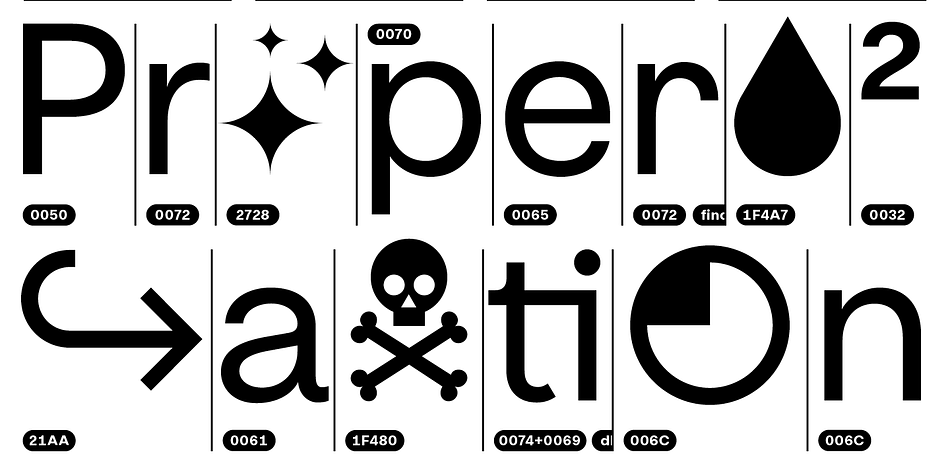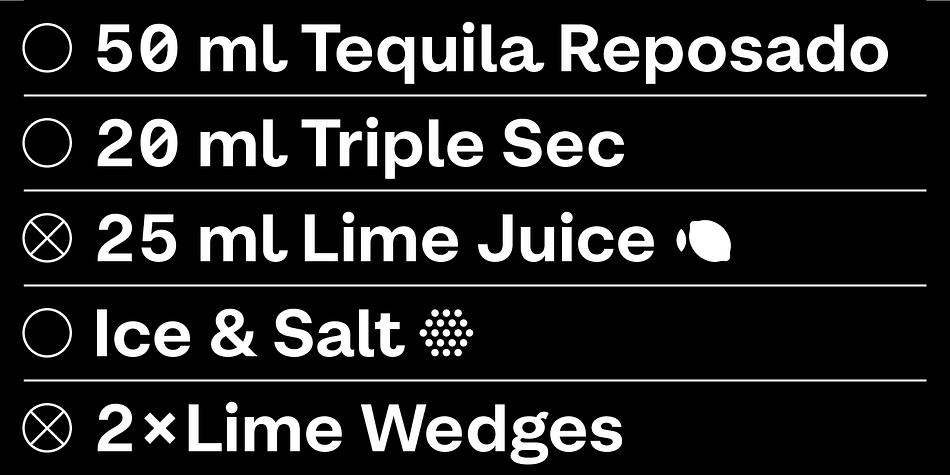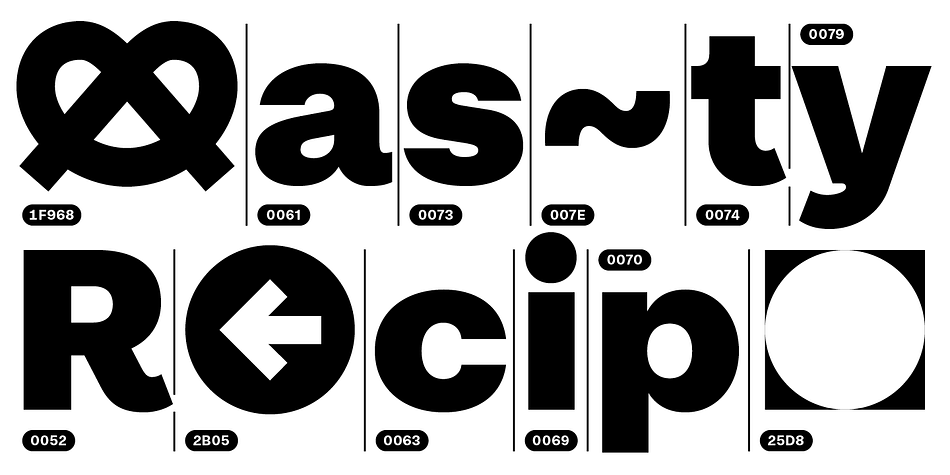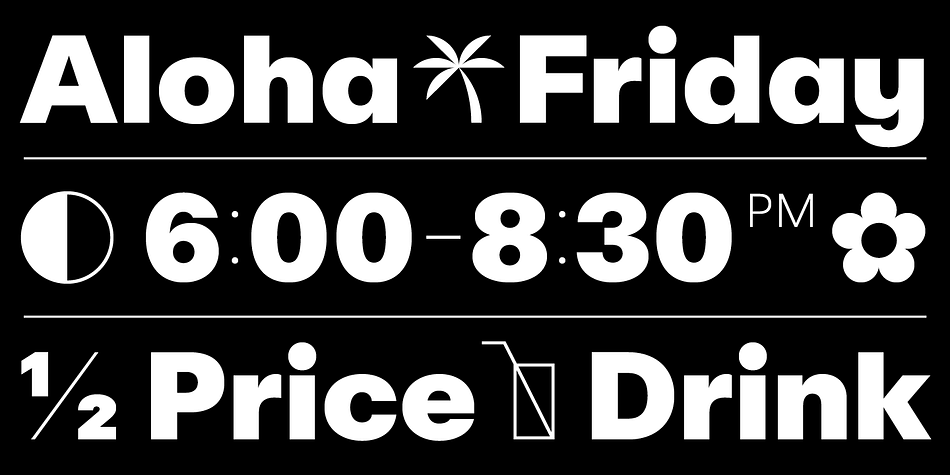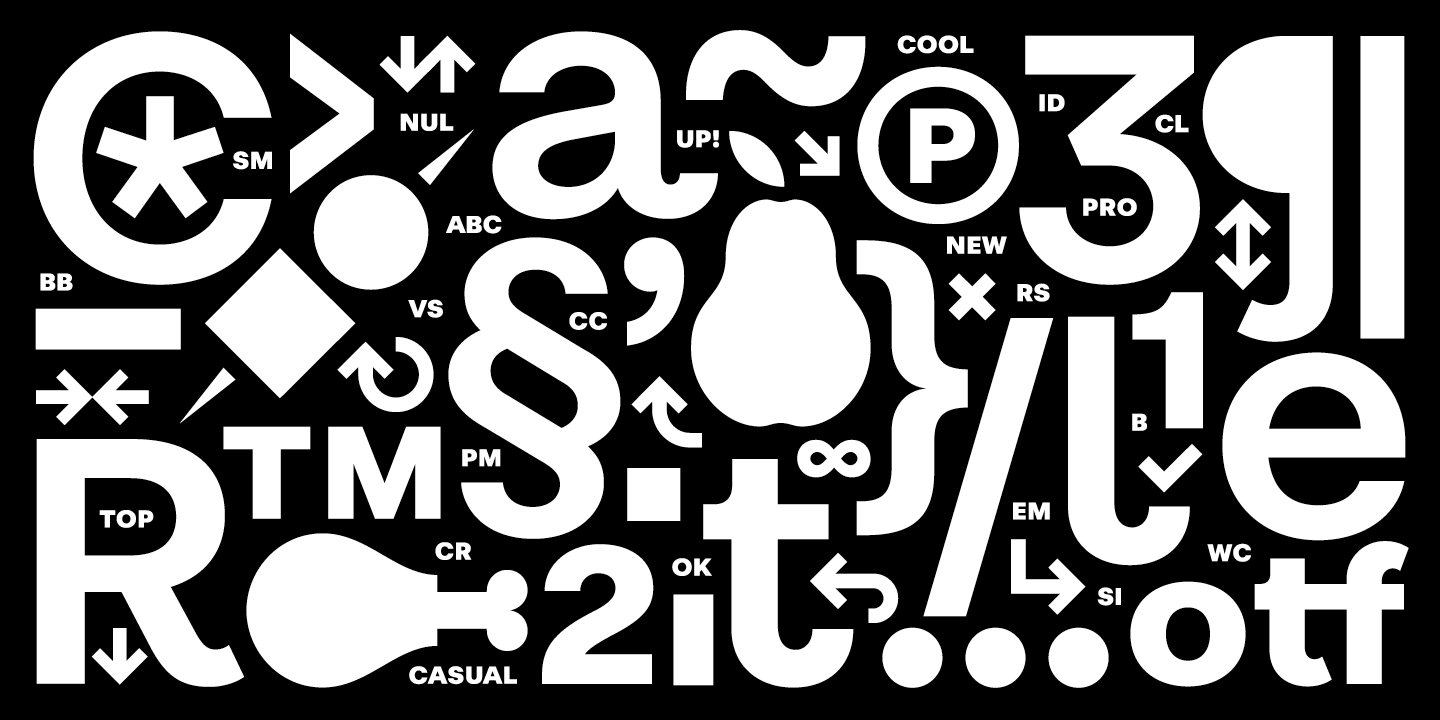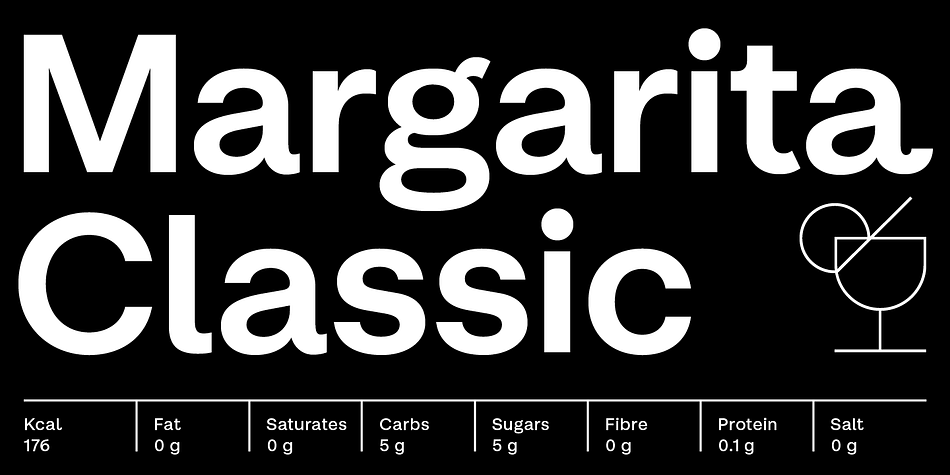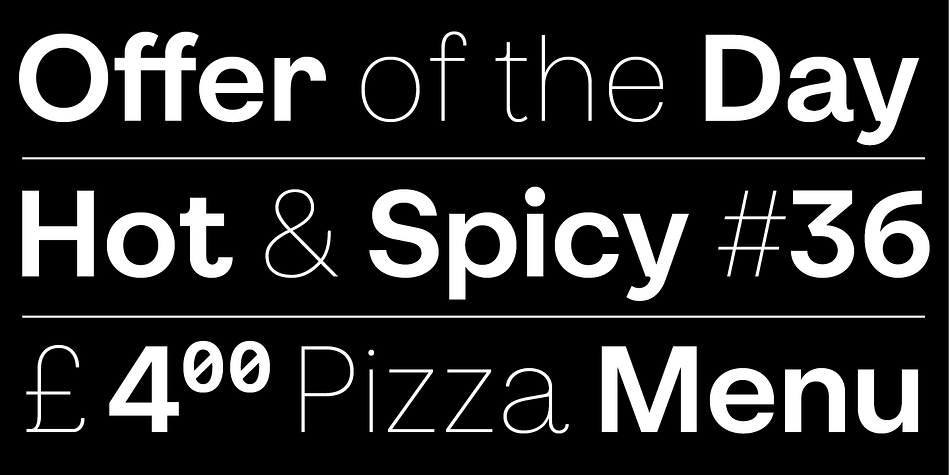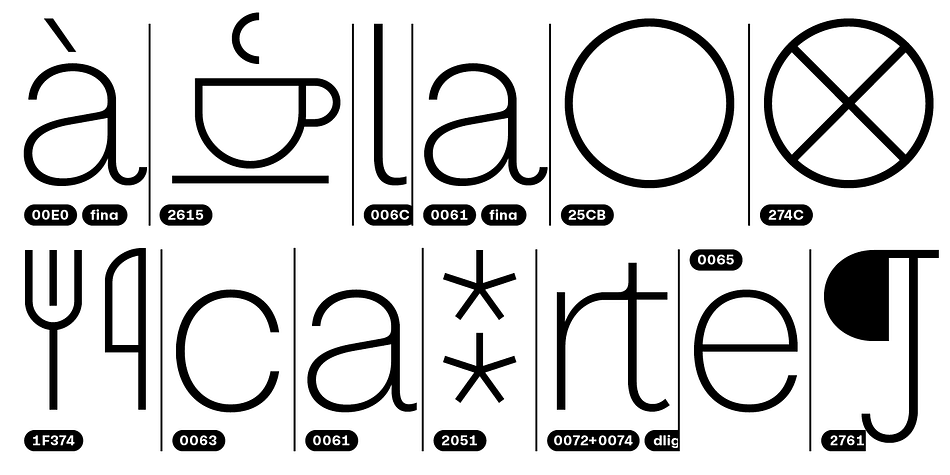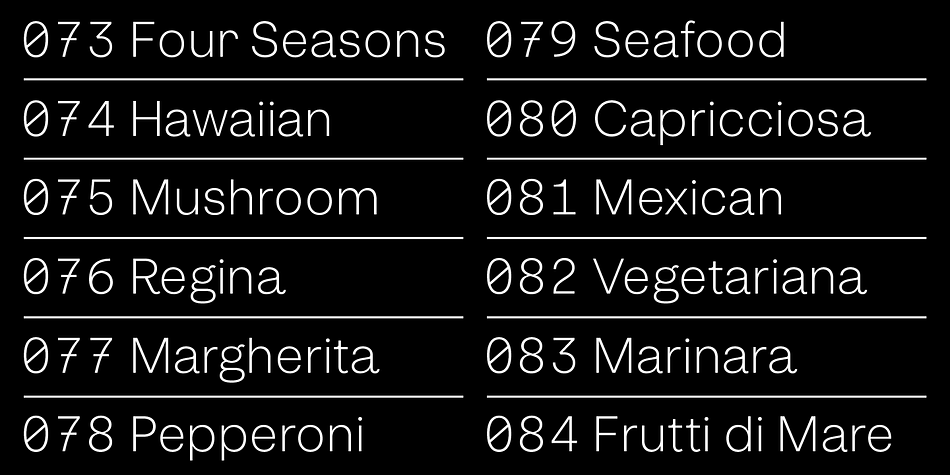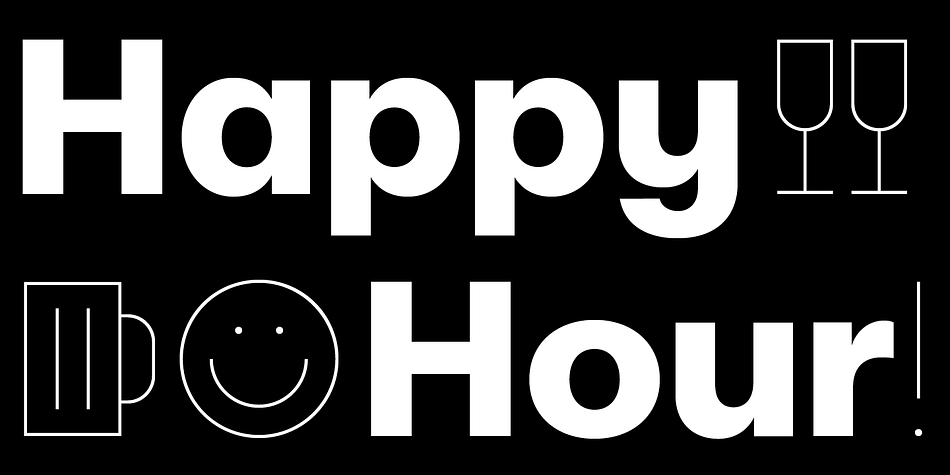
BB Casual™ (Pro) is a sans serif font family. This typeface has thirty-four styles and was published by Bold Studio.
BB Casual™ (Std/Pro) is a font family that appears between a contemporary neo and geogrotesque design.
The characteristic is formed by the intermediate step of the font classifications on the most relevant shapes: geometry (shape and with), contrast (text and display), white space (initial and terminal) and chiriographic elements (linework, punctuation, style and variant).
The character set also has a large selection of matching symbols and superscripts.
● 2 Variants: characterized and simplified
● 20 Stylistic-Sets
● 34 Styles
● 41 OpenType features
● 95 Languages Support
● 41,854 Glyphs (1,231/Style)